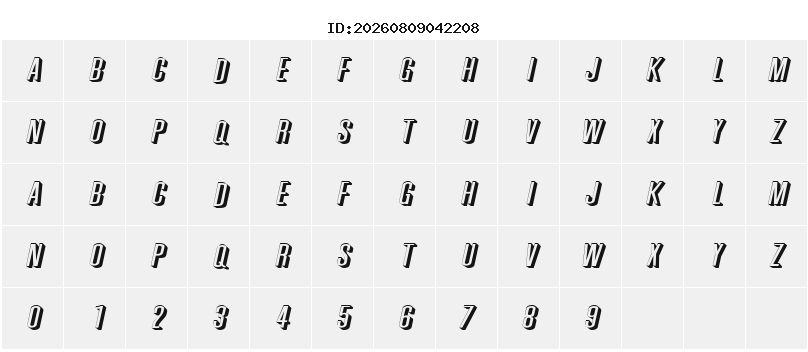
About Phoenix Extended.ttf
Phoenix Extended.ttf is a modern, elegant sans-serif font designed for ultimate readability and visual harmony. Perfect for branding, headlines, web design, and print materials.